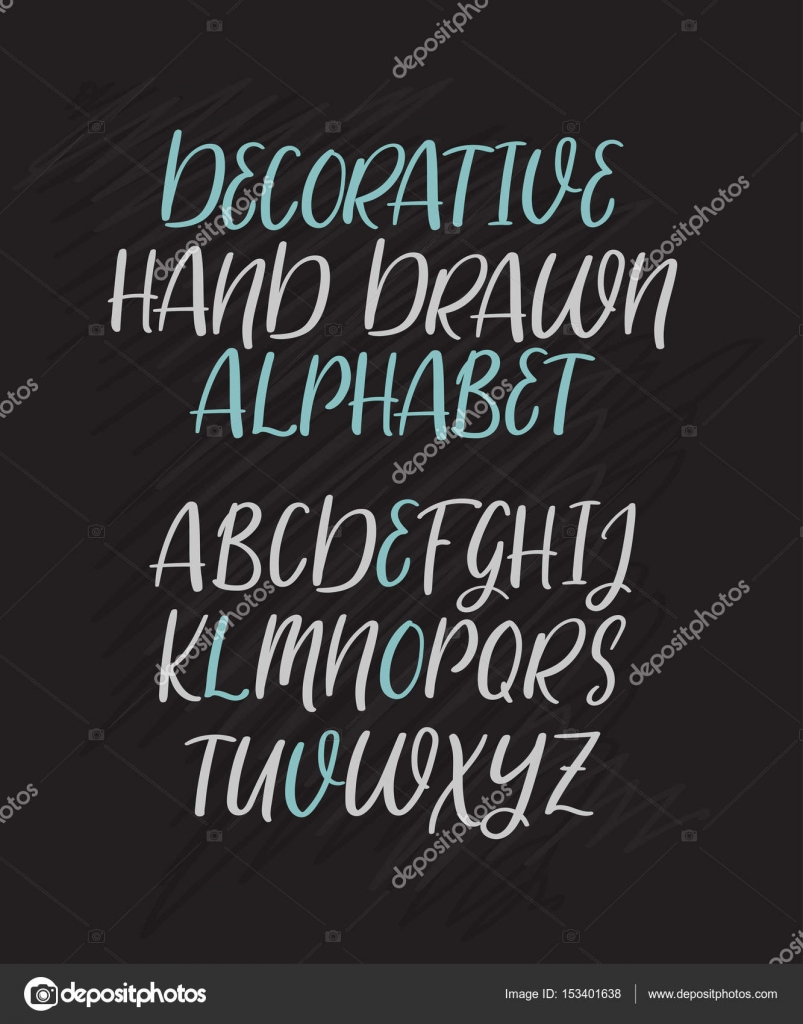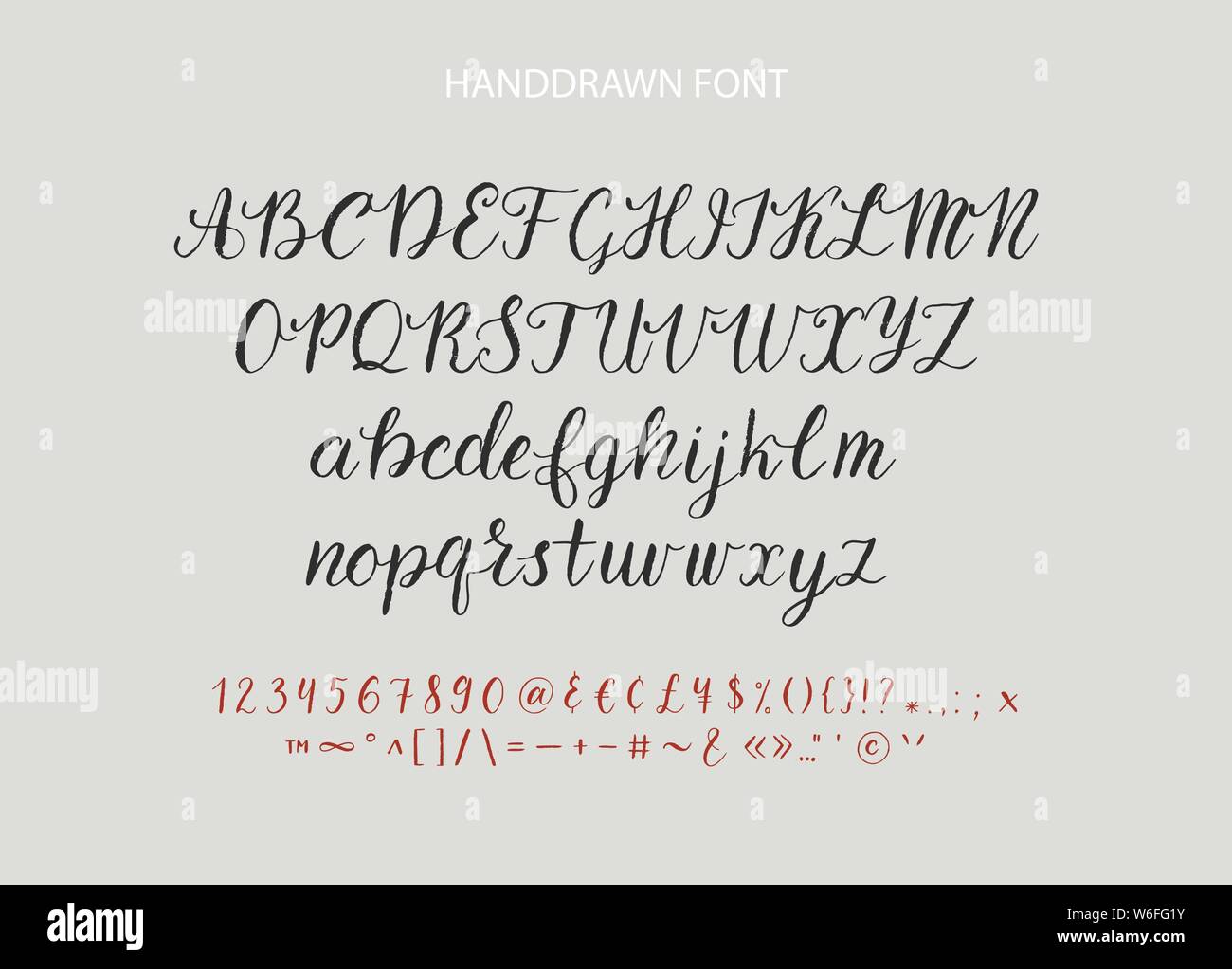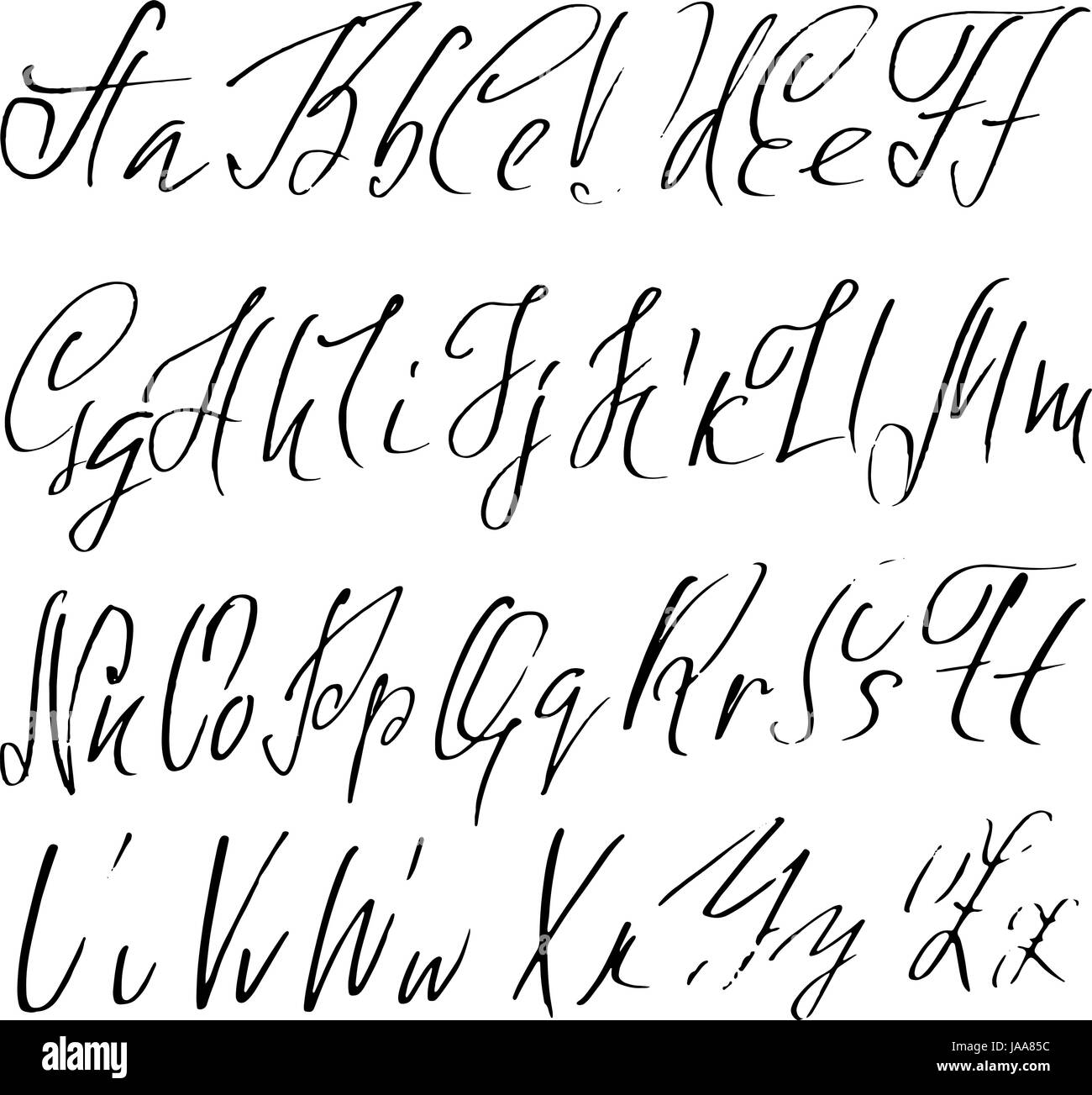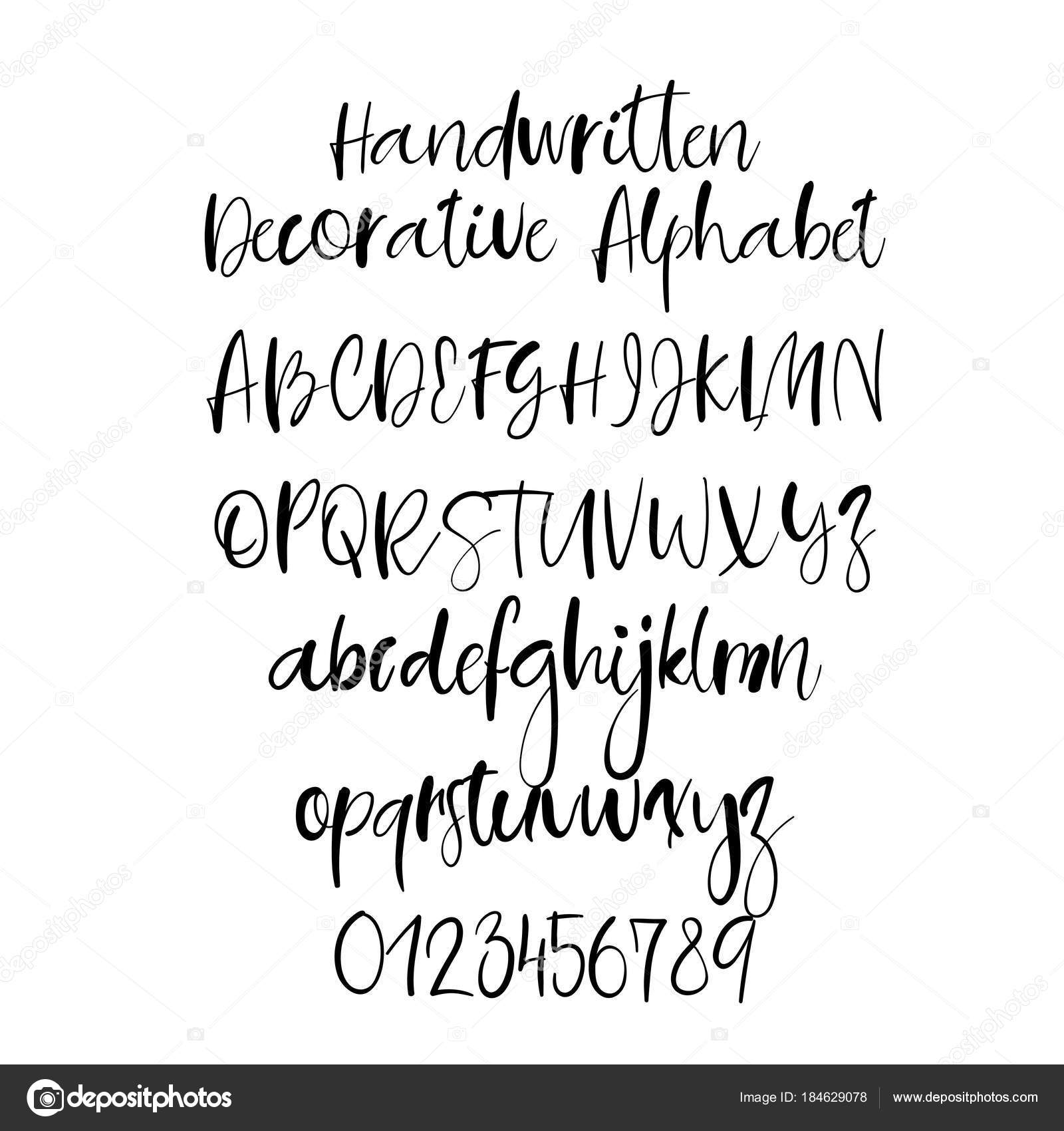
Sep 29 2017 - contemporary calligraphy alphabets by palomino More. Click to find the best 90 free fonts in the Hand Lettering Modern Calligraphy style.
Handwritten Script Font Hand Drawn Brush Style Modern Calligraphy Cursive Typeface Hand Lettering And Custom Typography Alphabet For Designs Logo Stock Vector Image Art Alamy
Fonts hand lettering modern calligraphy alphabet. All you have to do to receive the worksheet automatically in your inbox is to subscribe to the newsletter below. Looking for Hand Lettering Modern Calligraphy fonts. Jun 15 2019 - These examples of hand lettered alphabets are great inspiration for your own hand lettering.
This font is PUA encoded which means you can access all of the glyphs and swashes with ease. Anteater has a very unique style of calligraphy it is very suitable for use in the work of modern design. You can purchase full version and.
FREE DOWNLOAD FULL VERSION Salita Script by Ferdiansyah. Bitterlove Font is a modern calligraphy font by Letterafa Studio. This style can end up looking very similar to hand-lettered fonts but the difference is that calligraphy is written and not drawn.
If you are looking for a calligraphy font alphabet worksheet to learn to draw different styles of letters this 30-page worksheet is for you. We have 2033 free Modern Calligraphy Fonts to offer for direct downloading 1001 Fonts is your favorite site for free fonts since 2001. It has flowing letters that will give your designs a unique and sweet look with many lovely caracters.
Modern calligraphy typefaces differ from traditional calligraphy in that they do not adhere to specific lettering rules. It looks wonderful on wedding invitations thank you cards quotes greeting cards logos business cards and every other design which needs a handwritten touch. Anteater modern calligraphy font was designed by handwriting and it has a modern and unique forms of calligraphy the writing style is very natural.
Mawns Handwriting Font is high Handwriting calligraphy font designed by Måns Grebäck.